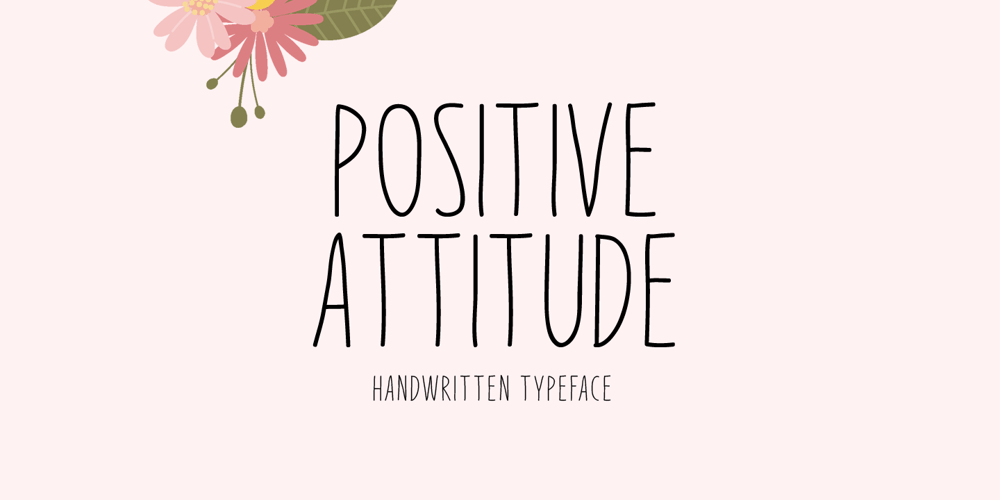
Positive Attitude
Positive Attitude font
Positive Attitude Font Family was designed by Md Shohail Bhuian and published by Seemly Fonts. Positive Attitude contains 1 styles and family package options. Positive Attitude is a simple and thin lettered font. Dainty and joyful, this font will be ideal for writing wedding invitations, cards, or any other design that may need a romantic, personalized touch!